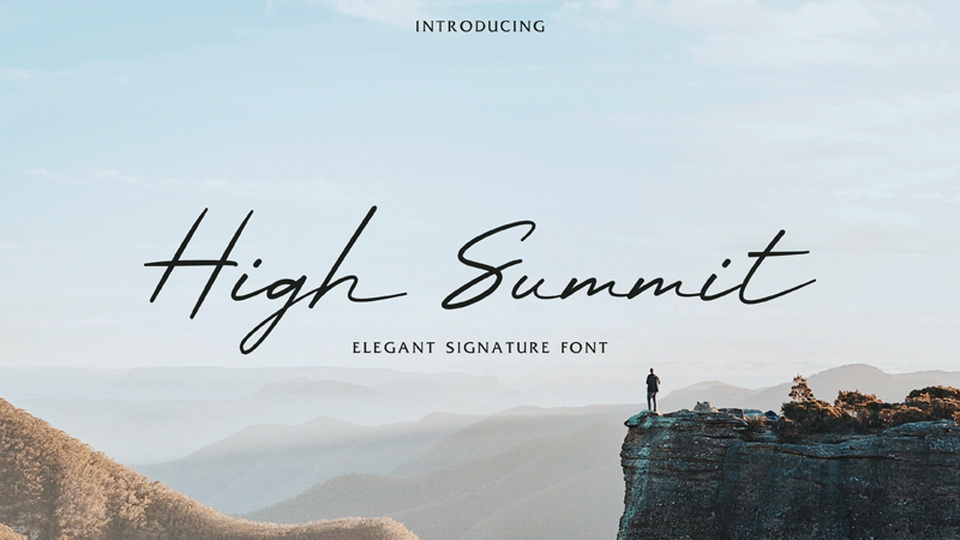
Download High Summit font, a signature style handwritten typeface with a natural and elegant flow. High Summit is perfect for personal branding, notes, quotes, social media and more.
Designer: ALPHA BETA Design Studio